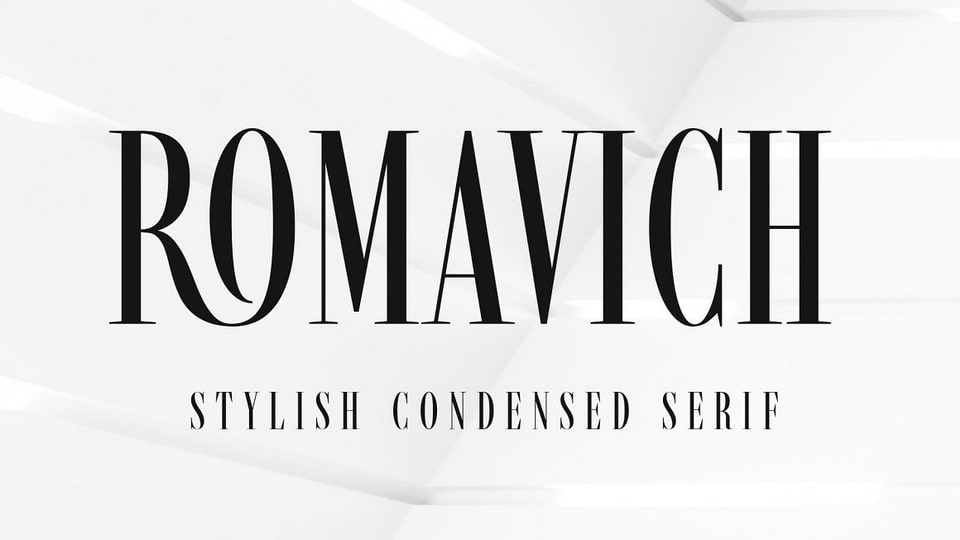
Download Romavich font, a beautiful condensed serif typeface, inspired by the modern serif style features with thin lines and bold serifs. This casual and minimalist typeface is versatile and can be used for a wide range of designs, including magazines, editorials, posters and so on.